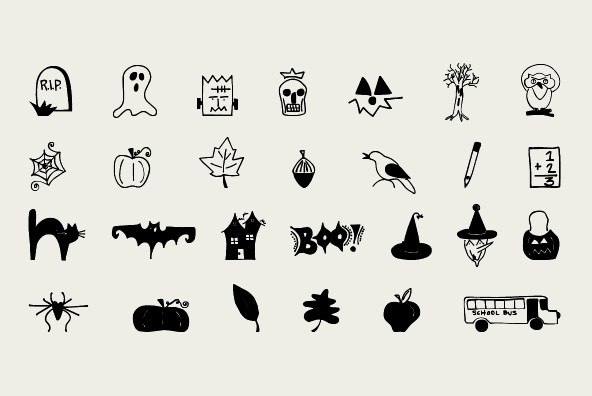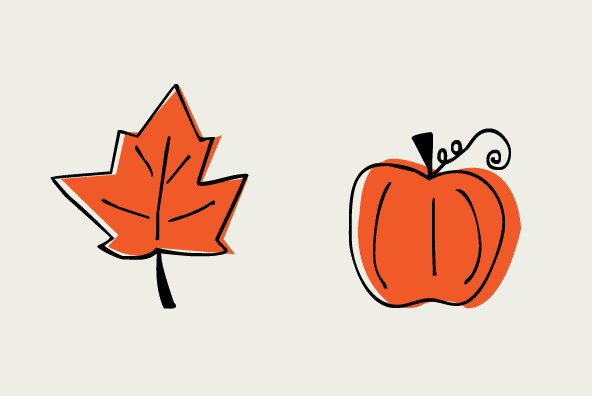
Lots of Fall fun, many Halloween icons... black cat, haunted house, witch hat, ghost, scary masks, pumpkins, bat, BOO! and more. Plus back to school icons... bus, pencil, flashcards, paste, leaves and an apple for the teacher.
Just Fall Holidays Just Fall Holidays
Lots of Fall fun, many Halloween icons... black cat, haunted house, witch hat, ghost, scary masks, pumpkins, bat, BOO! and more. Plus back to school icons... bus, pencil, flashcards, paste, leaves and an apple for the teacher.